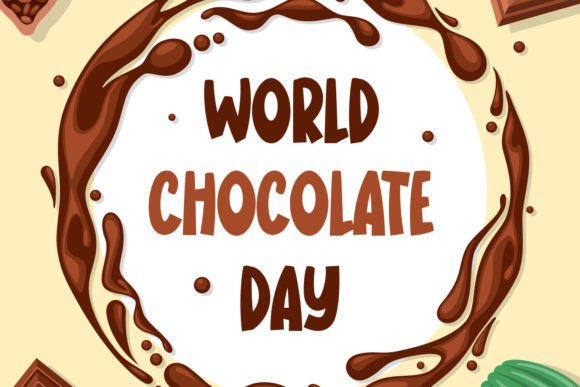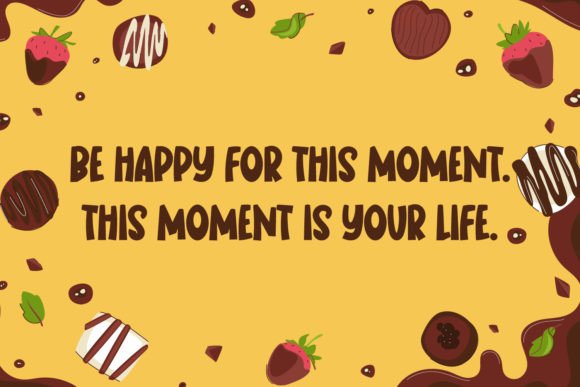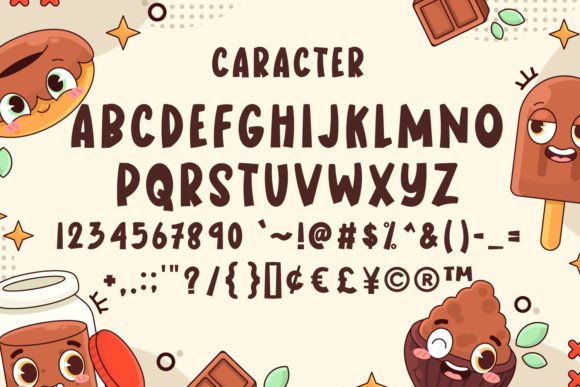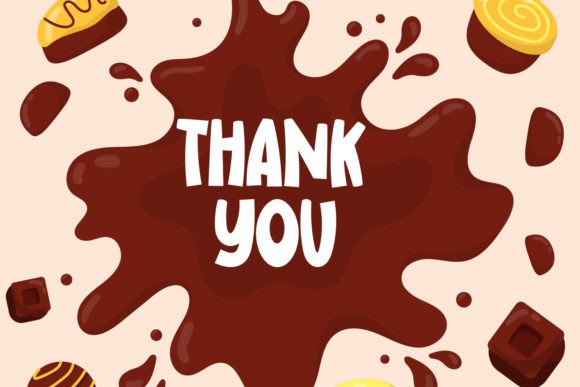
Introducing Chocolate Font: The Sweetest Addition to Your Typography Collection
Are you a designer, crafter, or typography enthusiast looking for a font that can add a touch of whimsy and charm to your creations? Look no further than Chocolate Font, a beautiful and cute display font that’s sure to elevate your designs to the next level. In this article, we’ll dive into the world of Chocolate Font, exploring its features, benefits, and uses, and why it’s an incredible asset to your font library.
What is Chocolate Font?
Chocolate Font is a stunning display font that’s perfect for adding a touch of sweetness to your designs. With its playful and charming appearance, this font is ideal for a wide range of projects, from creative branding and advertising to crafting and DIY tutorials. Whether you’re designing a logo, creating a social media graphic, or crafting a handmade card, Chocolate Font is sure to make your project stand out.
Key Features of Chocolate Font
So, what makes Chocolate Font so special? Here are just a few of its key features:
- Unique and playful design: Chocolate Font boasts a one-of-a-kind design that’s both fun and sophisticated.
- Highly versatile: This font can be used for a wide range of projects, from digital designs to print materials.
- Easy to read: Despite its playful appearance, Chocolate Font is highly legible, making it perfect for use in titles, headings, and short paragraphs.
- Supports multiple languages: Chocolate Font supports a range of languages, making it a great choice for designers and crafters working with international clients or audiences.
Benefits of Using Chocolate Font
So, why should you add Chocolate Font to your typography collection? Here are just a few benefits of using this beautiful font:
- Adds a touch of whimsy: Chocolate Font brings a playful and charming touch to your designs, making them more engaging and memorable.
- Elevates your brand: With its sophisticated and elegant appearance, Chocolate Font can help elevate your brand and give it a more premium feel.
- Increases creativity: The unique design of Chocolate Font can inspire creativity and help you think outside the box when it comes to your designs.
- Perfect for crafters and DIY enthusiasts: Chocolate Font is a great choice for crafters and DIY enthusiasts looking to add a personal touch to their handmade projects.
Using Chocolate Font in Your Designs
So, how can you use Chocolate Font in your designs? Here are a few ideas to get you started:
- Logos and branding: Use Chocolate Font to create a unique and memorable logo that sets your brand apart.
- Social media graphics: Add a touch of whimsy to your social media graphics with Chocolate Font, making them more engaging and shareable.
- Handmade cards and gifts: Use Chocolate Font to add a personal touch to your handmade cards and gifts, making them extra special.
- Advertising and marketing: Chocolate Font can help your advertising and marketing materials stand out, making them more effective and memorable.
In conclusion, Chocolate Font is a beautiful and cute display font that’s sure to elevate your designs to the next level. With its unique and playful design, highly versatile nature, and ease of use, this font is an incredible asset to your font library. Whether you’re a designer, crafter, or typography enthusiast, Chocolate Font is a great choice for adding a touch of whimsy and charm to your creations. So why not give it a try and see the difference it can make?
Whether you’re looking to add a touch of sweetness to your branding, create engaging social media graphics, or craft handmade cards and gifts, Chocolate Font is the perfect choice. With its sophisticated and elegant appearance, this font is sure to make your designs stand out and leave a lasting impression.